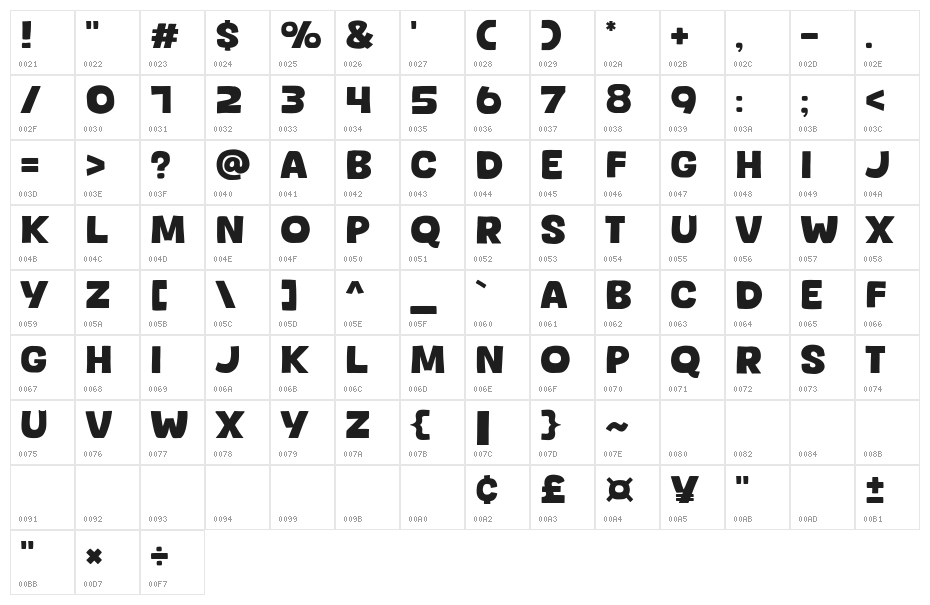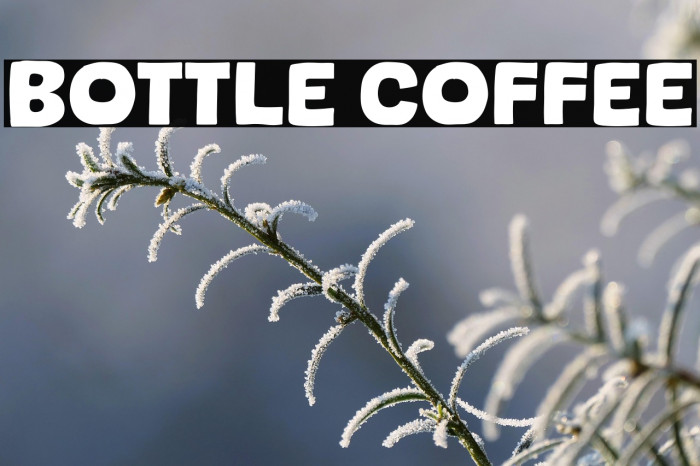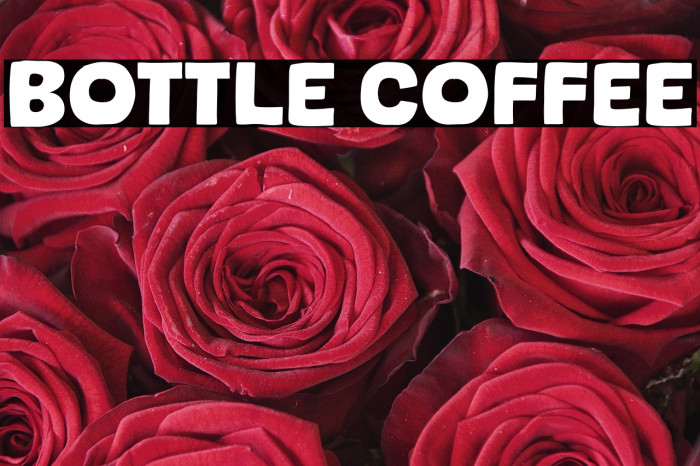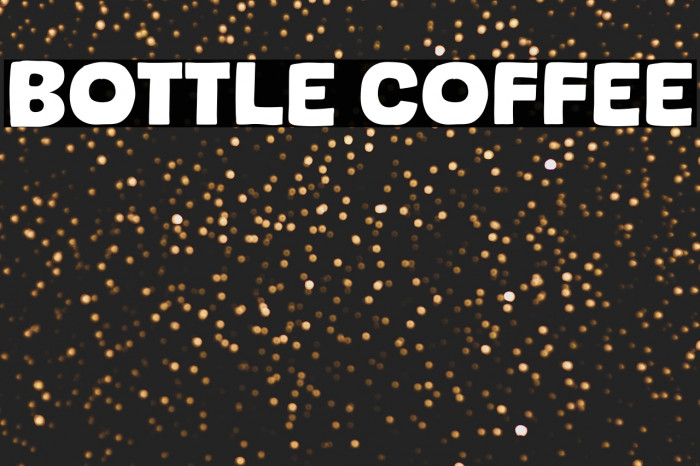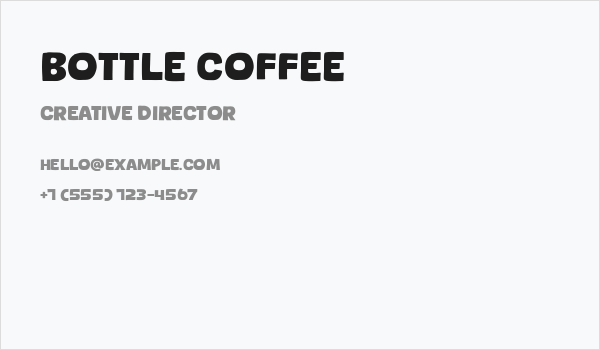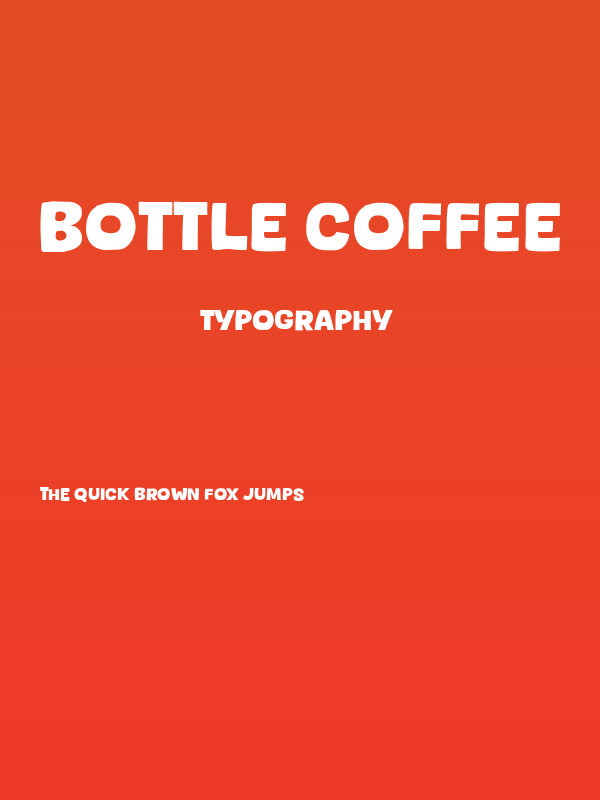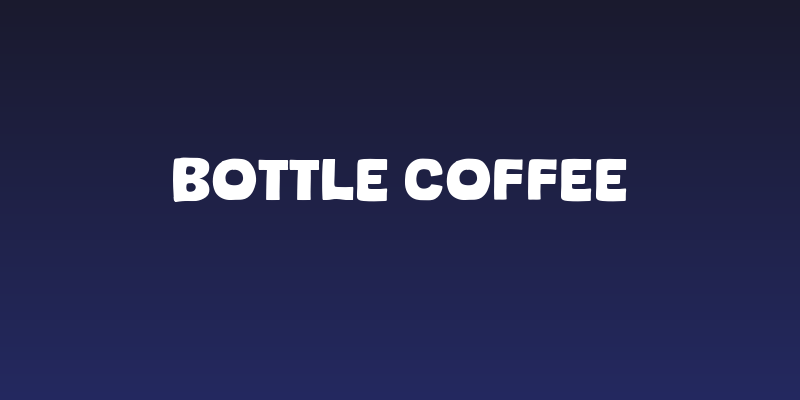
Bottle Coffee Font
Bottle Coffee Description
This font features a bold and playful style with thick, rounded strokes that give it a friendly and approachable appearance. The characters are slightly condensed, enhancing readability while maintaining a compact form. The uppercase and lowercase letters share a consistent design, with smooth curves and a uniform stroke width that adds to its cohesive look. The numerals and special characters are designed to match the overall style, ensuring versatility across different uses. This font's unique character is ideal for projects that require a touch of whimsy and creativity.
Overall StylePlayful, Modern
Proposed ProjectsIdeal for children's books, playful branding, posters, and creative packaging.